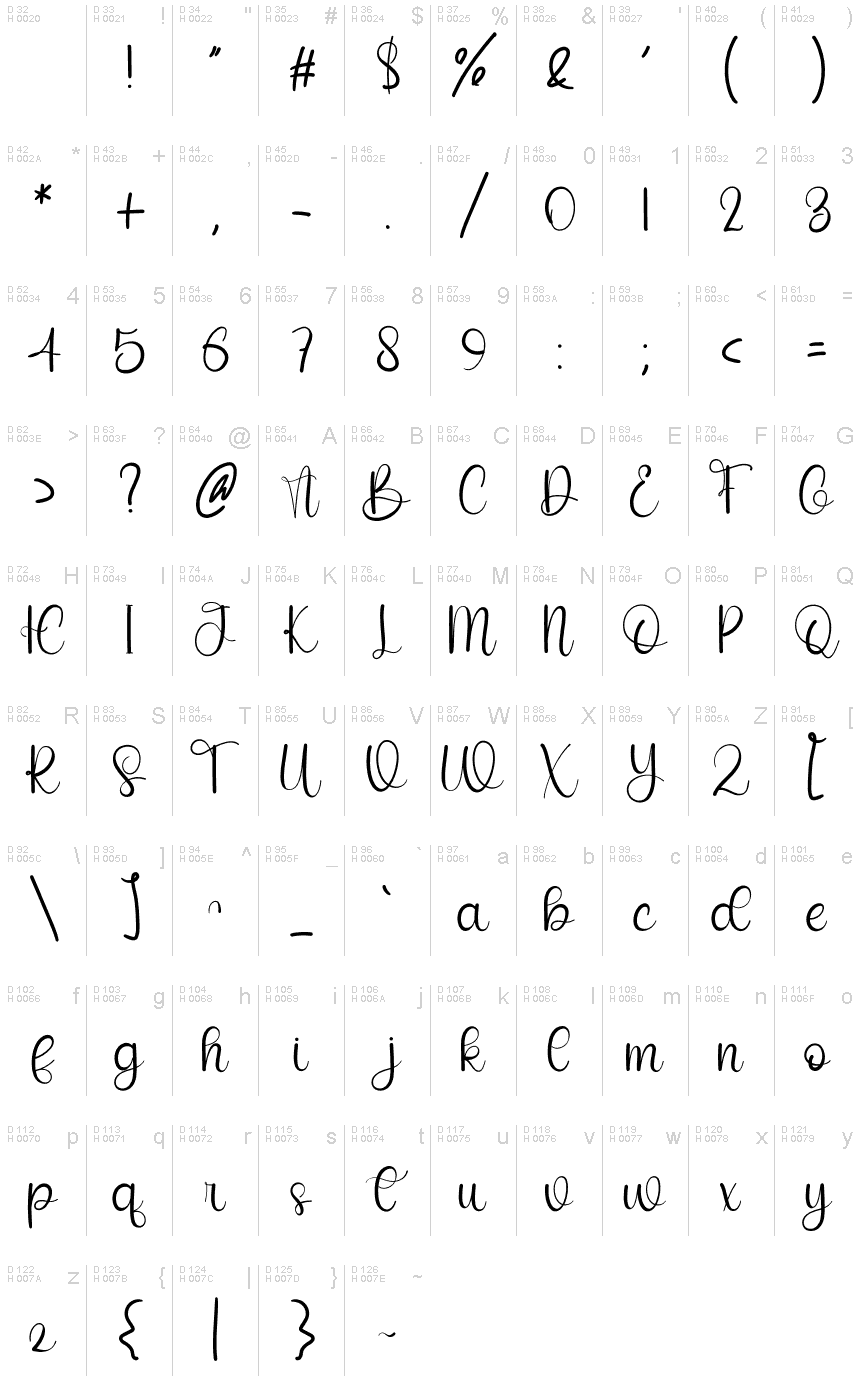
Twinkle
Twinkle, designed by 39, is a beautiful handwritten font that effortlessly adds a touch of elegance to any project.
With its semi-light weight, Twinkle exudes a delicate and refined aesthetic, making it perfect for invitations, greeting cards, and wedding stationery. Its graceful curves and flowing strokes create a sense of whimsy and charm in logos and branding materials. Twinkle's versatility extends to packaging design, where it brings an artisanal feel to product labels and tags.
Whether used for websites or social media graphics, this font captivates with its enchanting handcrafted appeal.